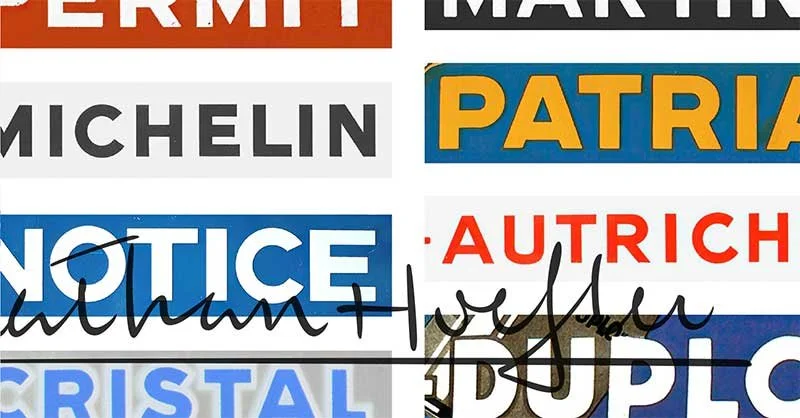
The History of the Gotham Typeface — Jonathan Hoefler
A century ago, only a book’s interior featured typography: whatever words appeared on its cover, spine, or illustrations were lettering, produced not by assembling letters, but by drawing them.